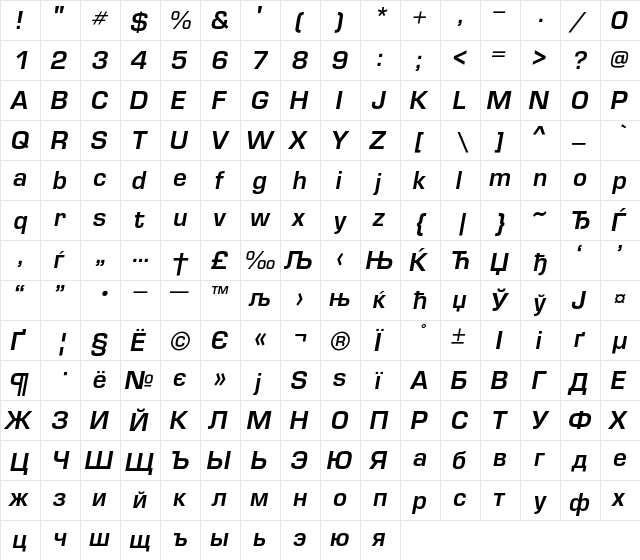
EuropeDemi Italic
Design Context for EuropeDemi Typeface
EuropeDemi is a composed and adaptable typeface that performs quietly and consistently across a wide range of design contexts. The dynamic lean of this cut emphasises speed and emphasis in any layout.
Pro Tip: Try EuropeDemi for annotation and caption copy alongside an upright companion — the contrast in angle creates a dynamic but ordered typographic system.